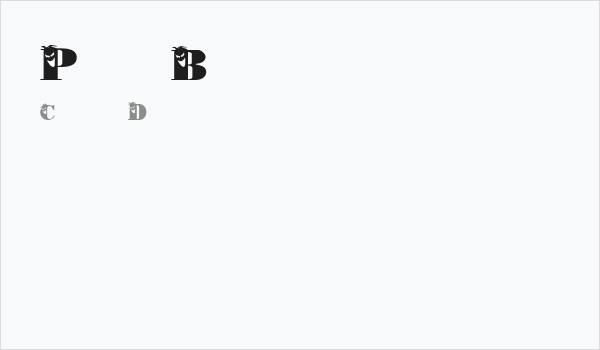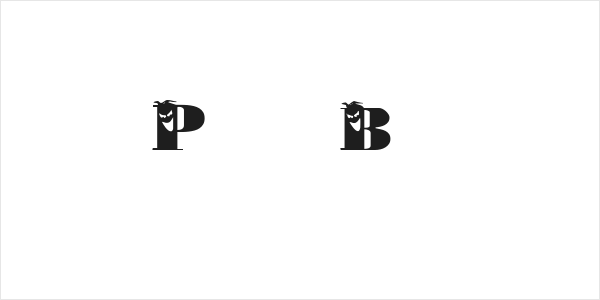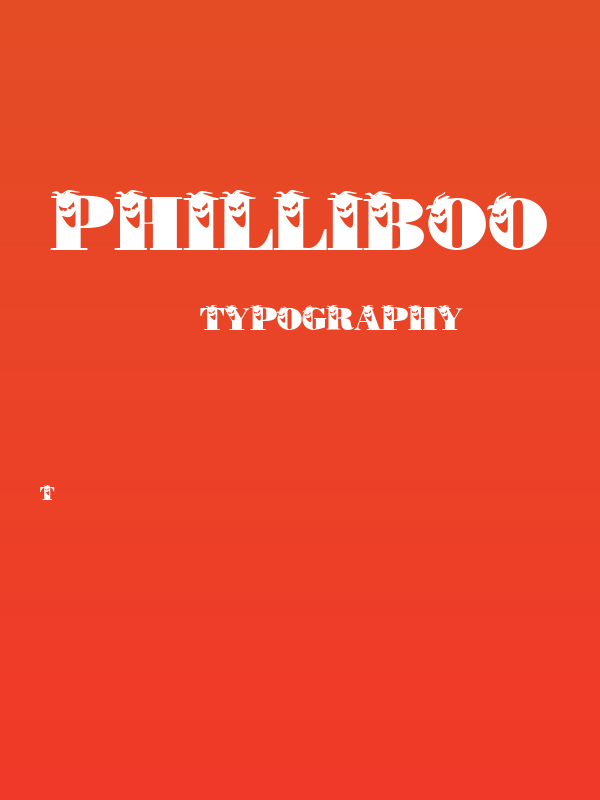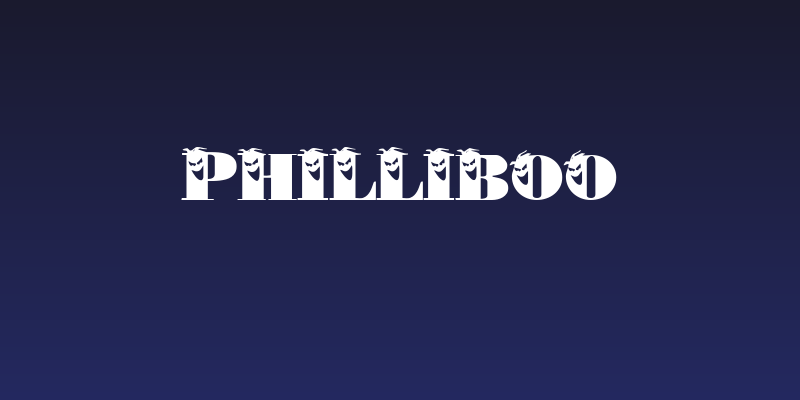
PhilliBoo Font
PhilliBoo Description
This font features a bold and decorative style with unique embellishments on each letter. The uppercase letters are adorned with intricate, eye-catching designs that give the font a playful and whimsical appearance. The characters are well-defined and maintain a consistent thickness throughout, providing a strong visual impact. The embellishments add a touch of creativity, making it suitable for projects that require a distinctive and artistic flair. The overall appearance is both striking and memorable, making it ideal for attention-grabbing designs.
| Proposed Projects | Ideal for posters, event invitations, branding, and any project needing a creative and artistic touch. |